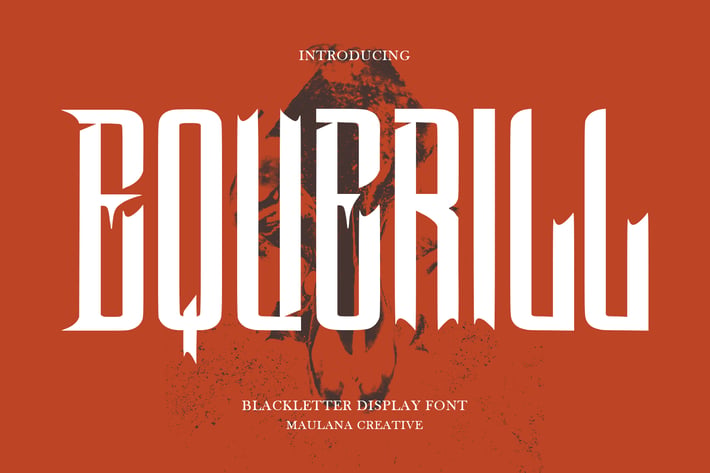
Equerill Blackletter Font
Equerill blackletter horror display font. Heavy stroke, vintage character with alternates. To give you an extra creative work. Equerill blackletter display font support multilingual language. This font is good for logo design, Social media, Movie Titles, Books Titles, a short text even a long text letter and good for your secondary text font with script or serif. Make a stunning work with Equerill blackletter font.